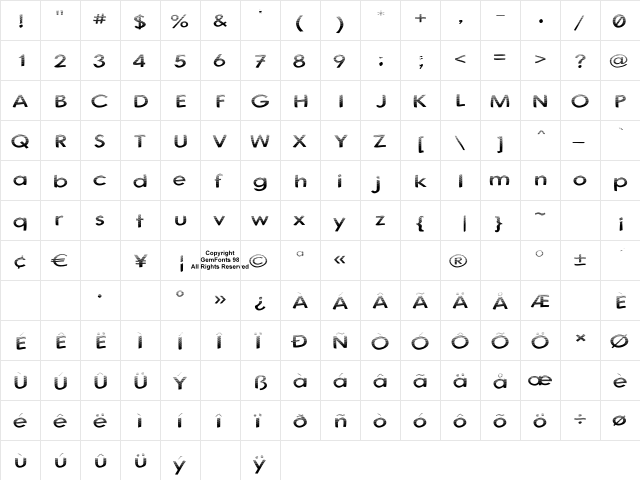
Australian Sunrise Regular
Design Context for Australian Sunrise Typeface
Australian Sunrise takes a measured approach to typography — its balanced proportions and neutral character make it a reliable workhorse for both digital and print work.